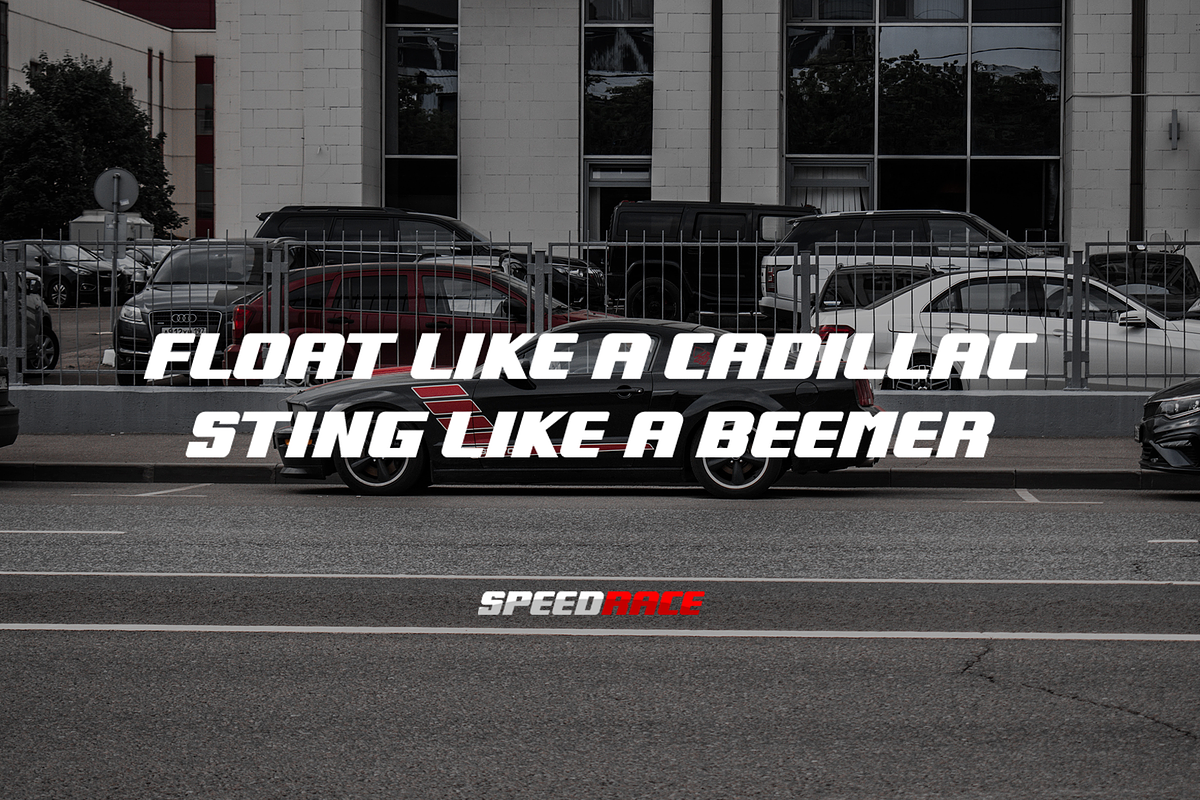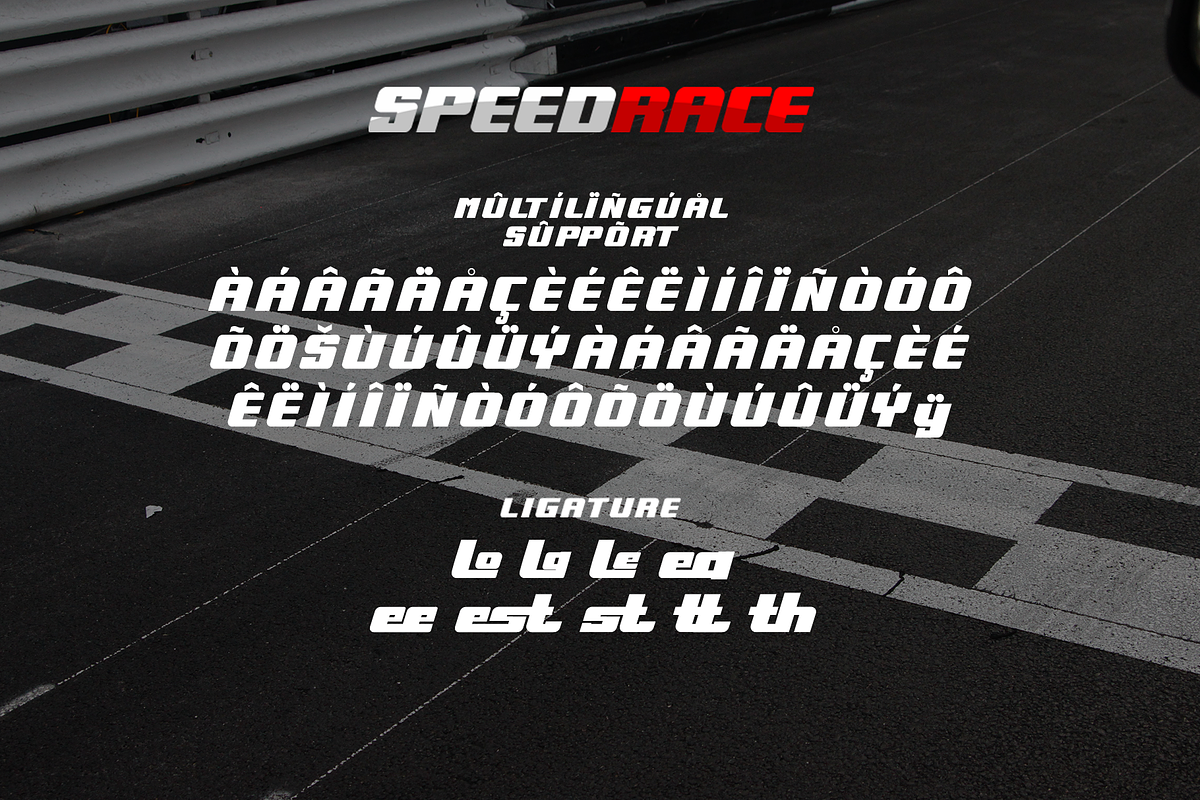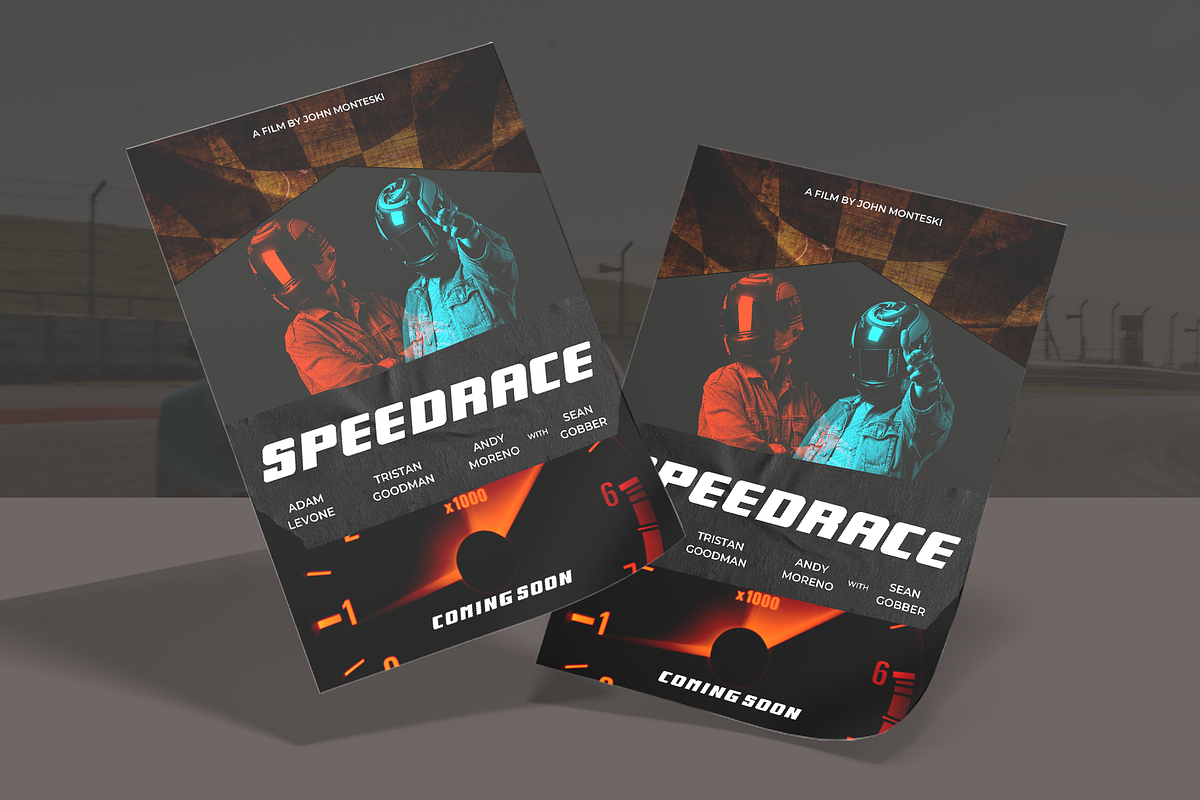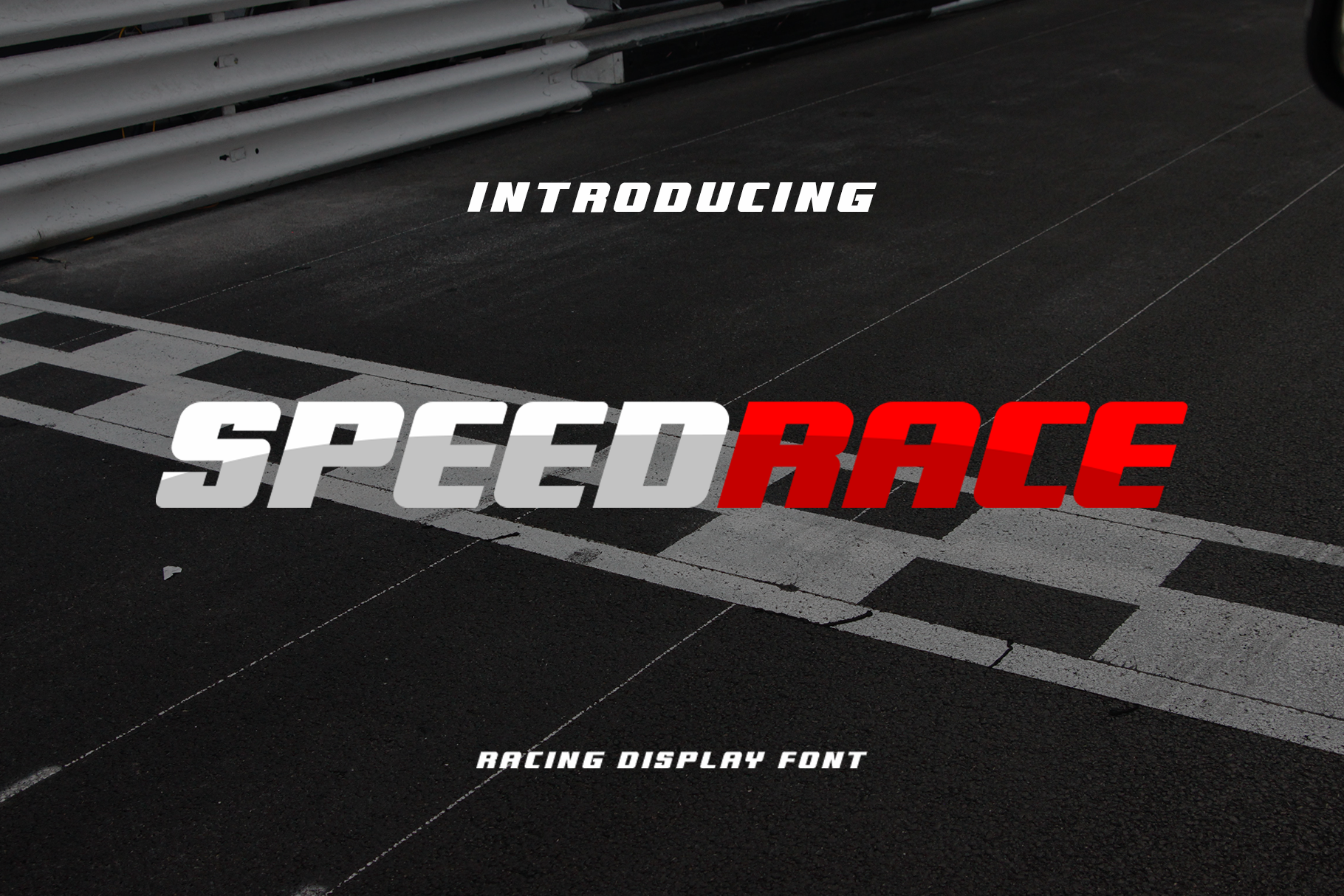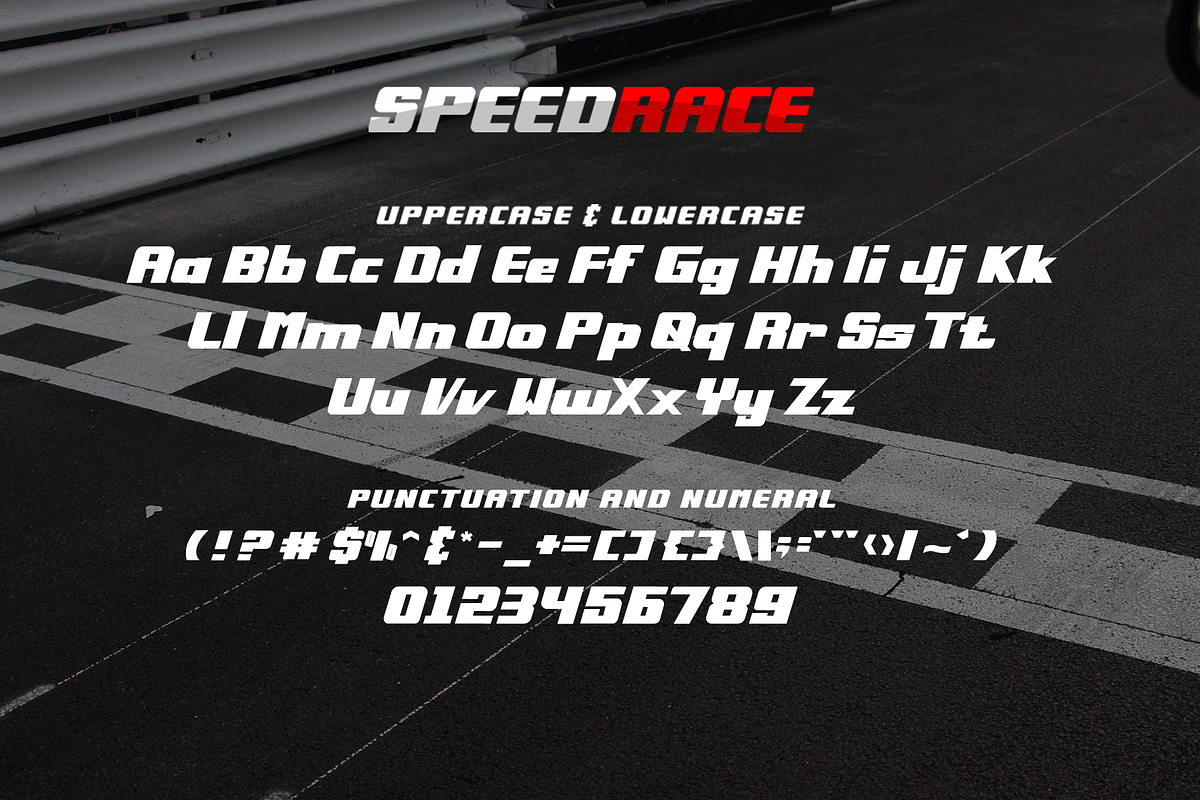
Speedrace - A Racing Display Font
Speedrace is a dynamic and fast-paced racing display font designed to inject energy and motion into your design projects. With its sleek lines and bold letterforms, Speedrace is perfect for sports branding, adrenaline-fueled posters, action-packed invitations, and automotive-themed designs. This font captures the essence of speed and excitement, ensuring your work stands out with a powerful and high-octane look.
Crafted for impact, Speedrace features sharp and angular characters that offer excellent readability and visual intensity. Its racing-inspired design makes it ideal for display purposes, providing a striking and memorable presence. The font’s versatility allows it to adapt seamlessly to various design contexts, from digital interfaces to printed materials, making it a valuable asset for any designer aiming to create fast-paced and thrilling visuals.
Elevate your design projects with Speedrace, a font that embodies the spirit of speed and competition. Its unique style and adaptability make it an essential addition to any designer’s toolkit for crafting dynamic and captivating designs. Enhance your work with Speedrace and experience the thrill of racing display typography.